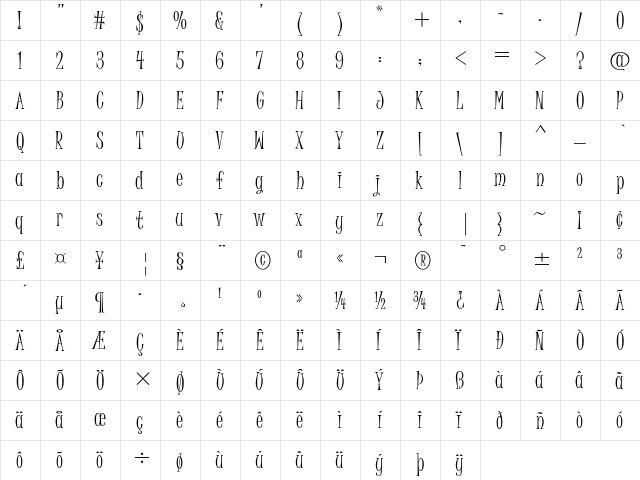
Juice ITC Alt ernate Font Preview
Juice ITC Alt ernate
Juice ITC Alt ernate Font Details
Design Context for Juice ITC Alt Typeface
Juice ITC Alt is a composed and adaptable typeface that performs quietly and consistently across a wide range of design contexts.